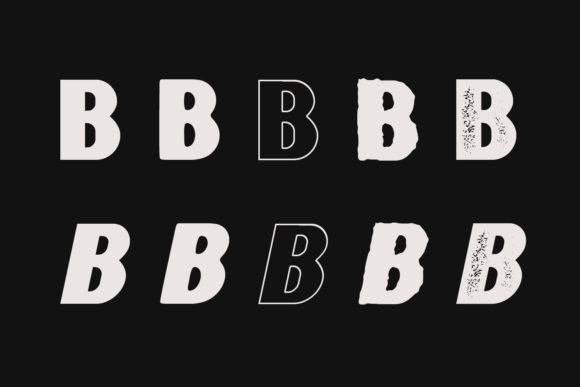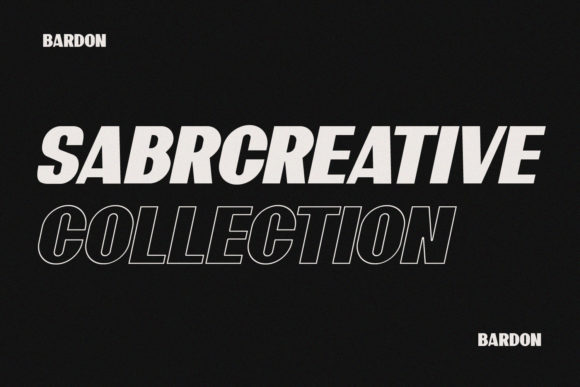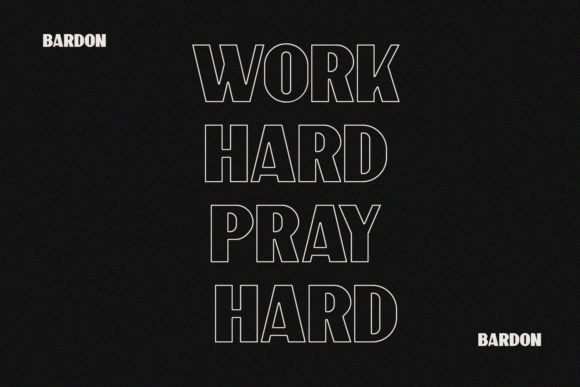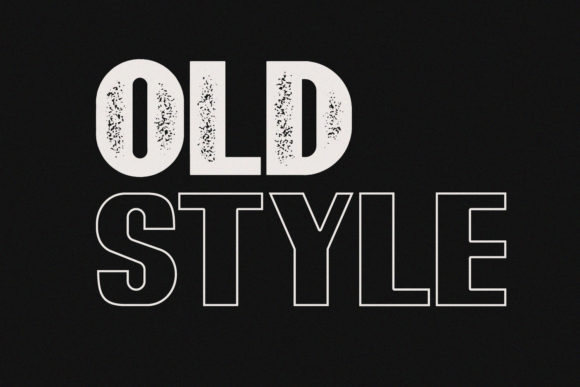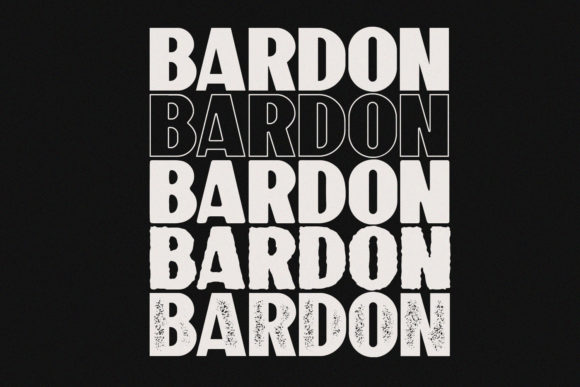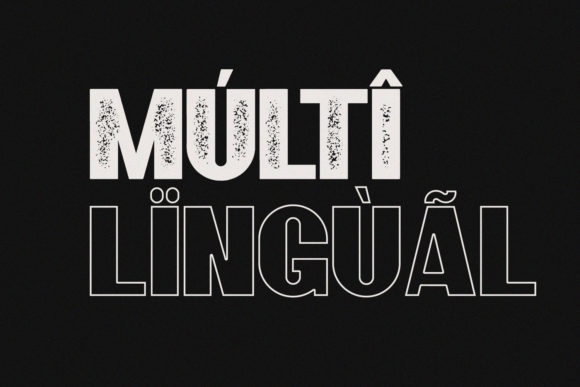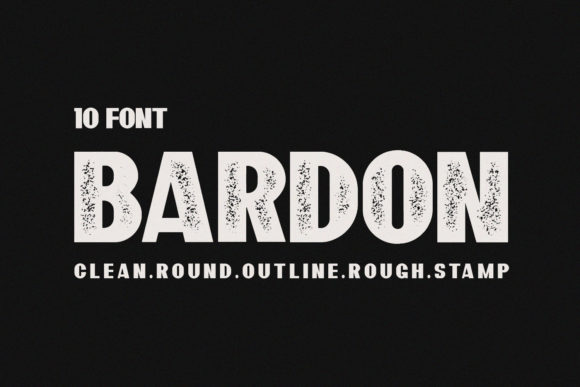
Bardon Family Font: Elevate Your Design Projects with a Timeless and Bold Display Font
Are you looking for a font that can add a touch of elegance and sophistication to your design projects? Look no further than the Bardon Family Font. This stunningly unique display font boasts a bold and timeless feel that is sure to elevate any design project. In this article, we’ll take a closer look at the Bardon Family Font, its features, and how it can be used to take your designs to the next level.
What is Bardon Family Font?
The Bardon Family Font is a display font designed to make a statement. Its bold and striking appearance makes it perfect for use in headlines, titles, and other design elements where you want to grab the viewer’s attention. The font features a unique and elegant design, with clean lines, subtle curves, and a sophisticated feel.
Key Features of Bardon Family Font
So, what makes the Bardon Family Font so special? Here are some of its key features:
- Bold and Timeless Feel: The Bardon Family Font has a bold and timeless feel that is sure to elevate any design project. Its classic design ensures that it will never go out of style.
- Unique and Elegant Design: The font features a unique and elegant design, with clean lines, subtle curves, and a sophisticated feel.
- Highly Versatile: The Bardon Family Font is highly versatile and can be used in a wide range of design projects, from branding and advertising to packaging and web design.
- Easy to Read: Despite its bold appearance, the Bardon Family Font is easy to read, making it perfect for use in headlines and titles.
How to Use Bardon Family Font in Your Design Projects
So, how can you use the Bardon Family Font in your design projects? Here are some ideas:
- Branding and Advertising: Use the Bardon Family Font to create bold and eye-catching headlines and titles for your branding and advertising campaigns.
- Packaging Design: Add a touch of elegance and sophistication to your packaging designs with the Bardon Family Font.
- Web Design: Use the Bardon Family Font to create stunning and effective headlines and titles for your website.
- Print Design: The Bardon Family Font is perfect for use in print design, including brochures, flyers, and posters.
Benefits of Using Bardon Family Font
So, what are the benefits of using the Bardon Family Font in your design projects? Here are some of the advantages:
- Instant Recognition: The Bardon Family Font is sure to grab the viewer’s attention and create instant recognition for your brand.
- Professional Look and Feel: The font’s elegant and sophisticated design gives your designs a professional look and feel.
- Versatility: The Bardon Family Font is highly versatile and can be used in a wide range of design projects.
- Timeless Appeal: The font’s classic design ensures that it will never go out of style.
| Font Name | Bardon Family Font |
| Author | sabrcreative |
In conclusion, the Bardon Family Font is a stunningly unique display font with a bold and timeless feel that is sure to elevate any design project. Its elegant and sophisticated design, highly versatile, and easy to read, making it perfect for use in a wide range of design projects. Whether you’re a designer, crafters, or business owner, the Bardon Family Font is a great choice for anyone looking to add a touch of elegance and sophistication to their designs.